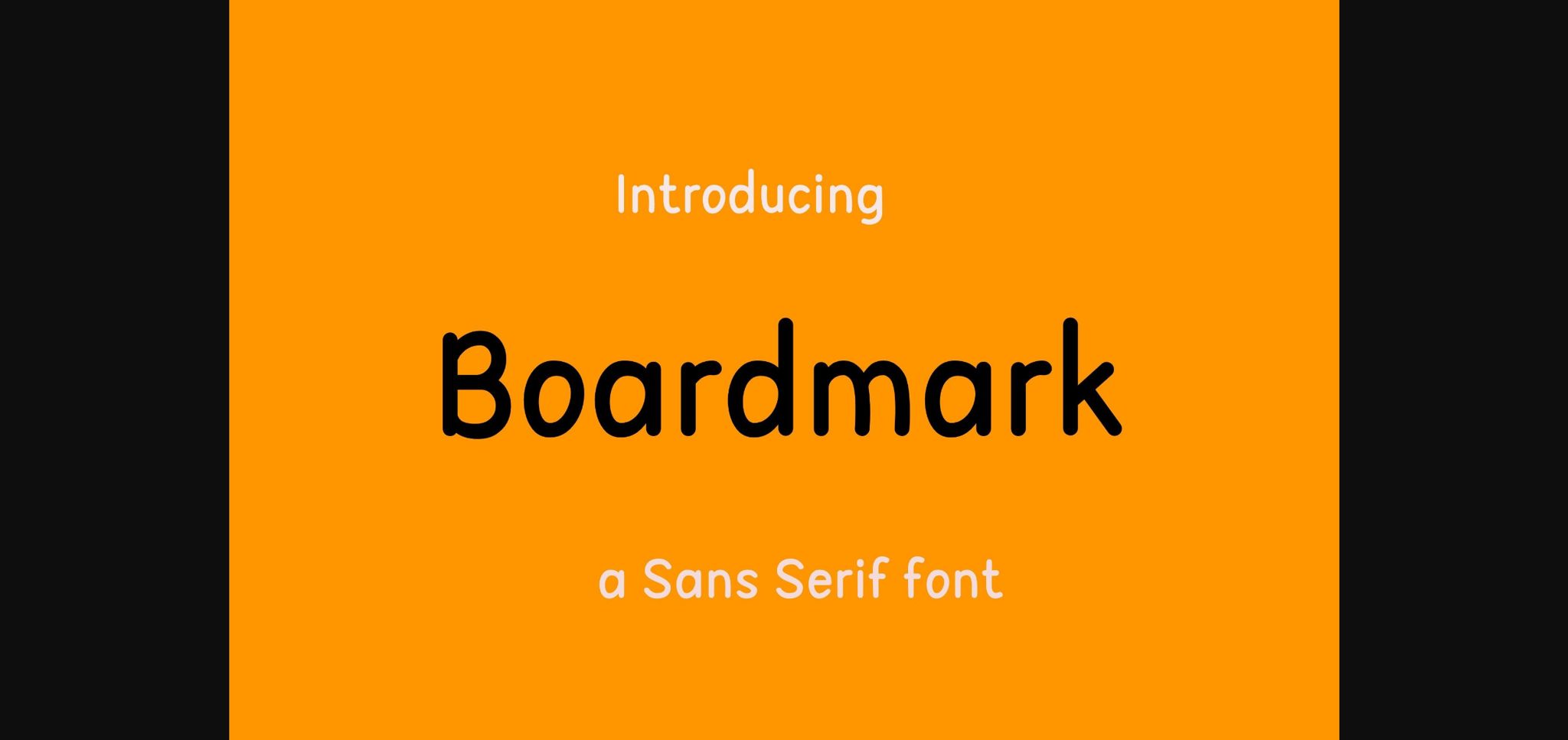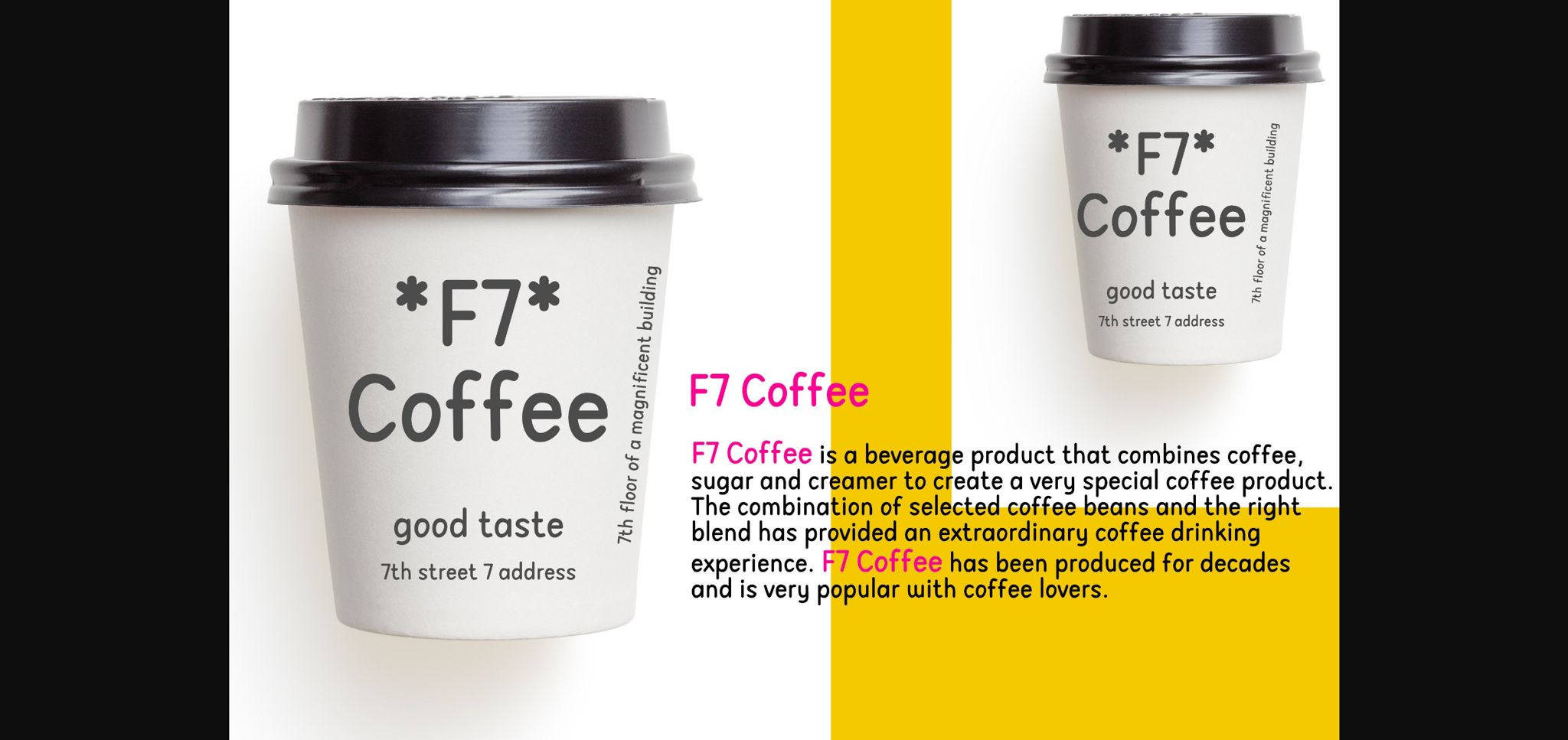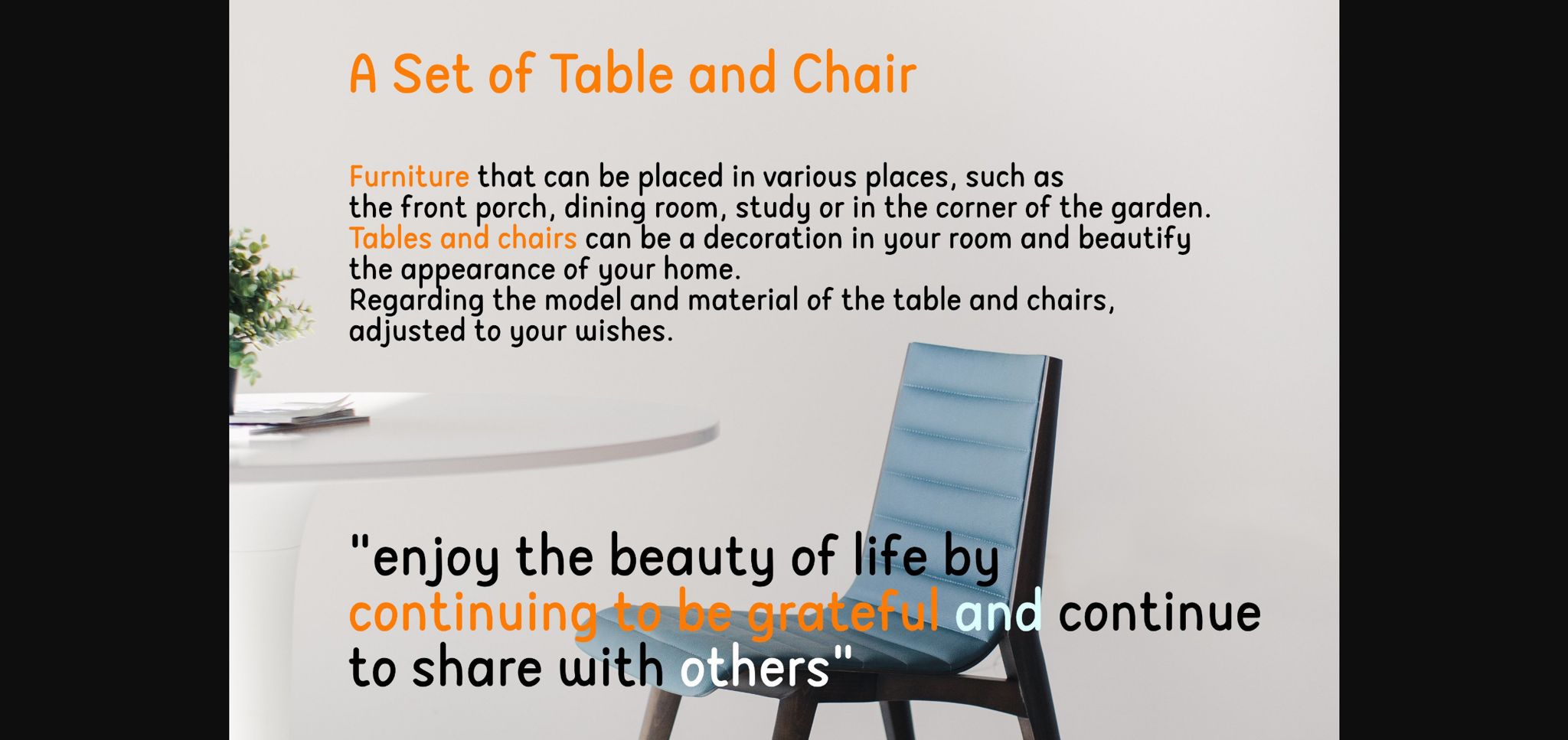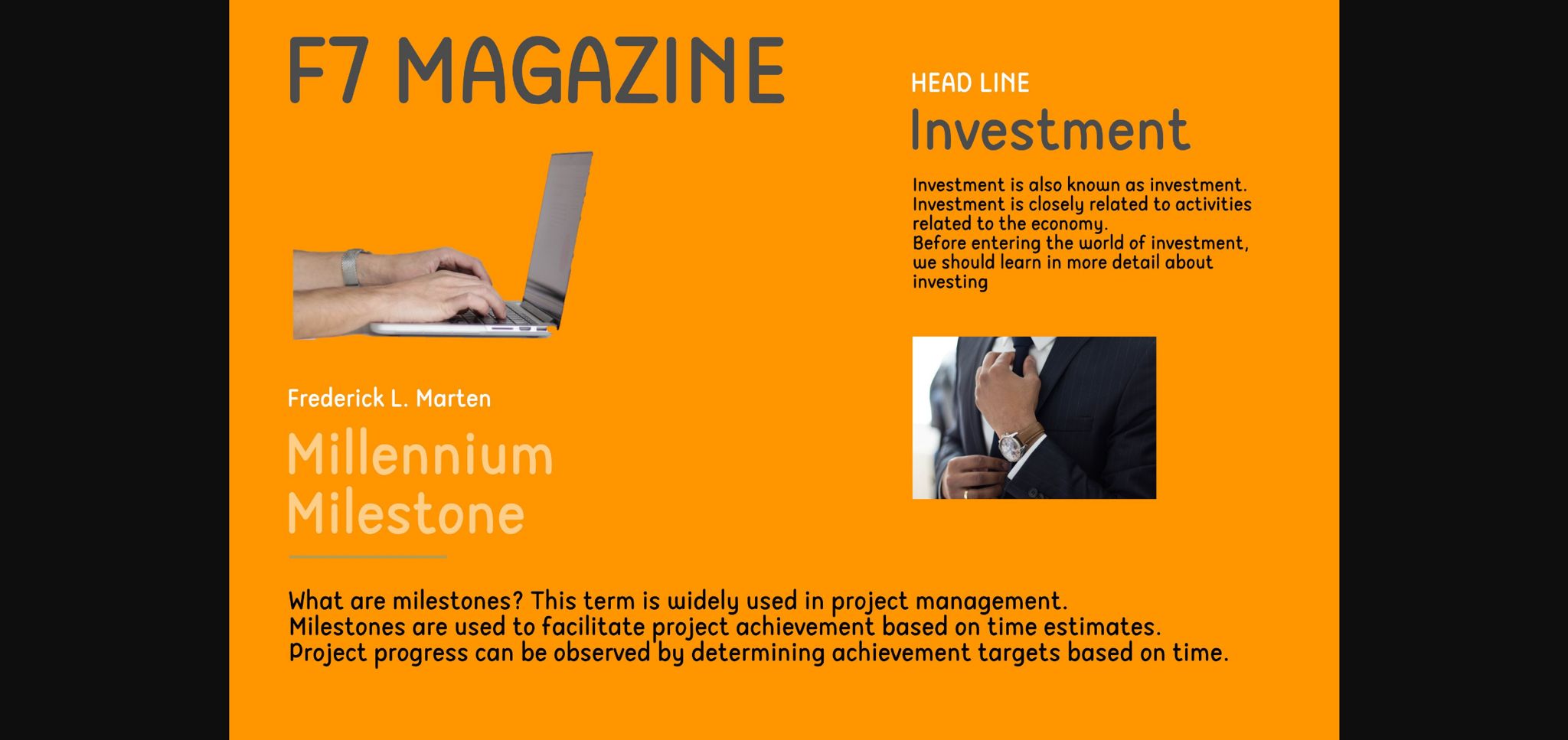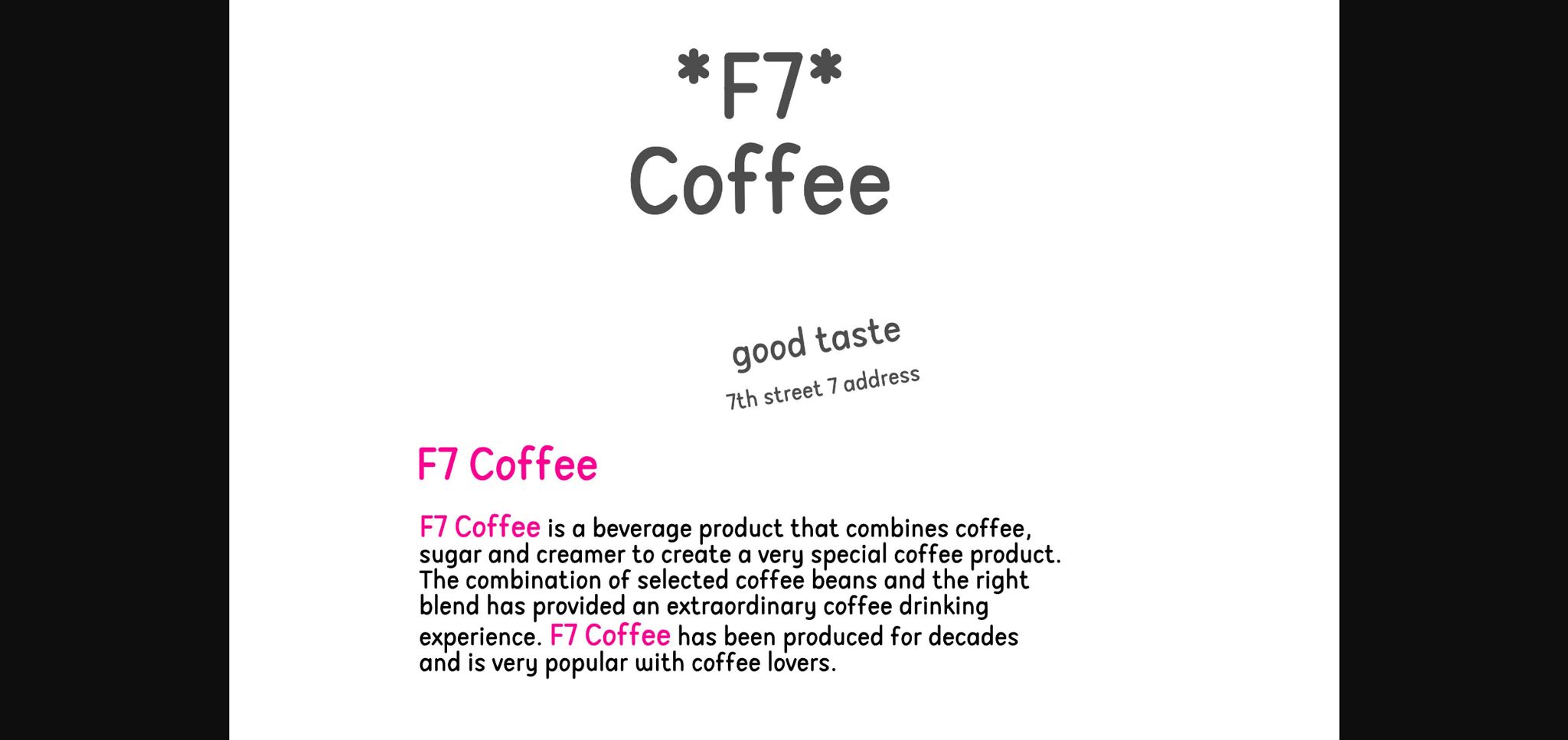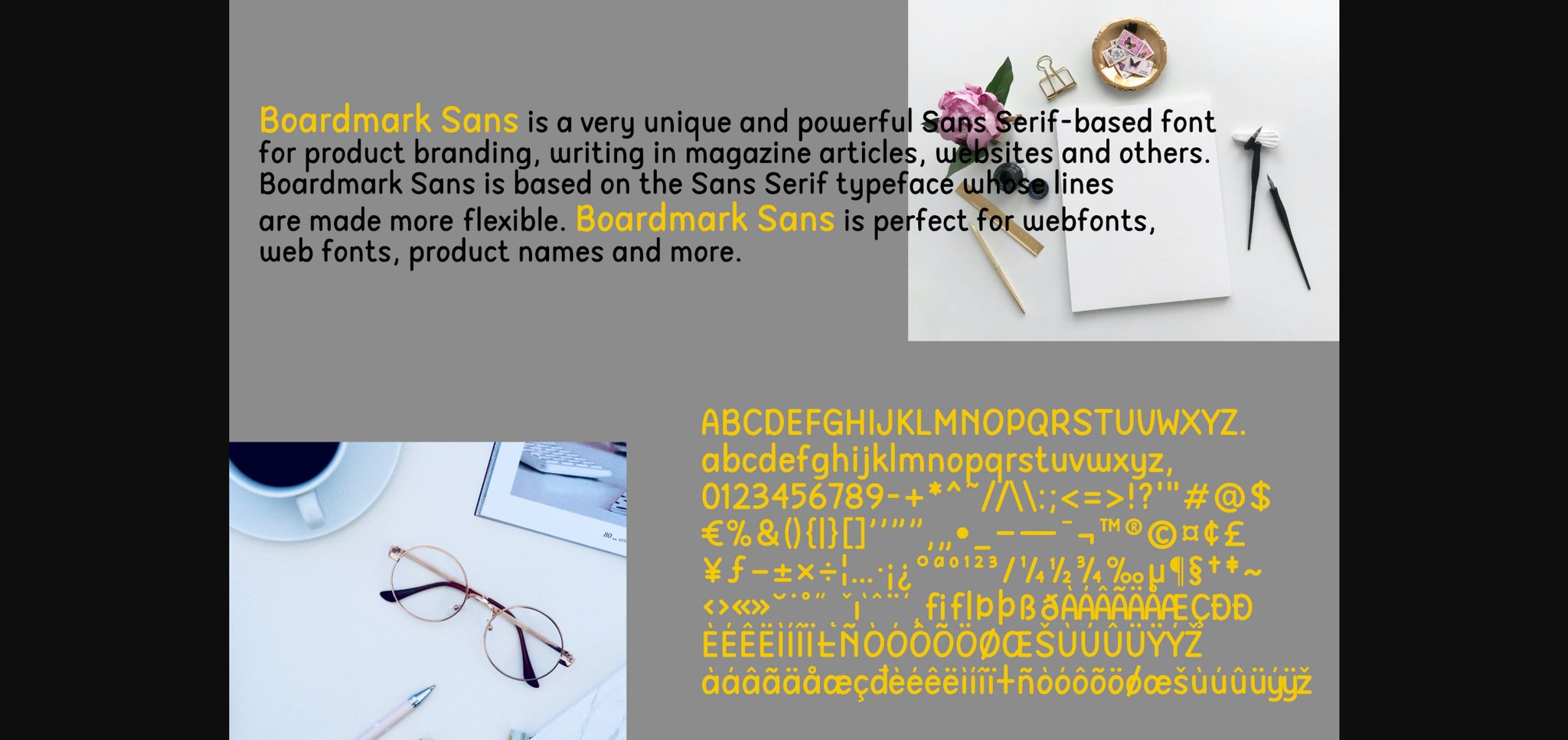
Boardmark is a classic sans serif font. No matter the topic, this font will be an incredible asset to your fonts’ library, as it has the potential to elevate any creation.